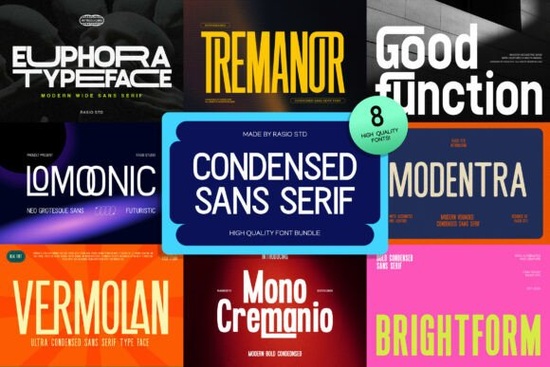
Designers, crafters, and small business owners often look for fonts that balance style with practicality. The Condensed Sans Serif Bundle Font is a great option if you're searching for a versatile type collection that works well in both print and digital formats. This bundle offers a range of condensed sans serif styles that are ideal for layouts where space is limited but readability is essential.
The Condensed Sans Serif Bundle Font stands out for its clean, tightly spaced letterforms. These characteristics make it perfect for headlines, posters, and branding systems where clarity and impact matter. Whether you're working on a website, social media graphic, or a printed brochure, this font bundle provides the flexibility needed to meet different design needs.
What Makes Condensed Sans Serif Fonts Useful?
Condensed sans serif fonts are designed to fit more text into a smaller space without sacrificing legibility. This makes them especially useful for projects like magazine layouts, signage, and UI elements. The Condensed Sans Serif Bundle Font includes multiple weights and styles, so you can choose the right one for your specific project.
If you're looking for a font that feels modern and professional, this bundle delivers. It’s suitable for both minimalistic designs and bold, expressive typography. The variety of styles ensures that you can match the tone of your work, whether it's a sleek logo or a dynamic poster.
How Does This Font Compare to Others?
Compared to other sans serif fonts, the Condensed Sans Serif Bundle Font offers a unique combination of efficiency and visual appeal. Its condensed structure allows for more content in less space, which is particularly helpful when designing for mobile screens or compact print materials. This makes it a smart choice for designers who value both aesthetics and functionality.
Where Can You Use This Font?
The versatility of the Condensed Sans Serif Bundle Font means it can be used in a wide range of applications. For example:
- Headlines and titles – Its clean lines make it easy to read at larger sizes.
- Branding and logos – The bold styles add a sense of strength and professionalism.
- User interfaces – Its condensed form helps save space in digital designs.
- Editorial layouts – Perfect for magazines, newsletters, and other publications.
This font is also great for print-on-demand sellers who need high-quality, readable text for t-shirts, mugs, and other products. Its adaptability ensures that it will work across different mediums and formats.
Why Choose This Font Bundle?
Choosing the Condensed Sans Serif Bundle Font gives you access to a collection of fonts that are both functional and stylish. Instead of purchasing individual fonts, this bundle offers a complete set of styles that can be used across multiple projects. This not only saves time but also ensures consistency in your design work.
When selecting a font, consider how it will perform in your specific use case. The Condensed Sans Serif Bundle Font is a reliable choice for anyone looking for a modern, efficient, and visually appealing typeface. Whether you're a designer, a small business owner, or a creative hobbyist, this bundle offers value and flexibility for everyday design needs.
Before finalizing your choice, take some time to test the fonts in your own projects. Seeing how they look in real-world scenarios can help you decide which ones work best for your goals. With the right font, your designs can feel more polished and professional.